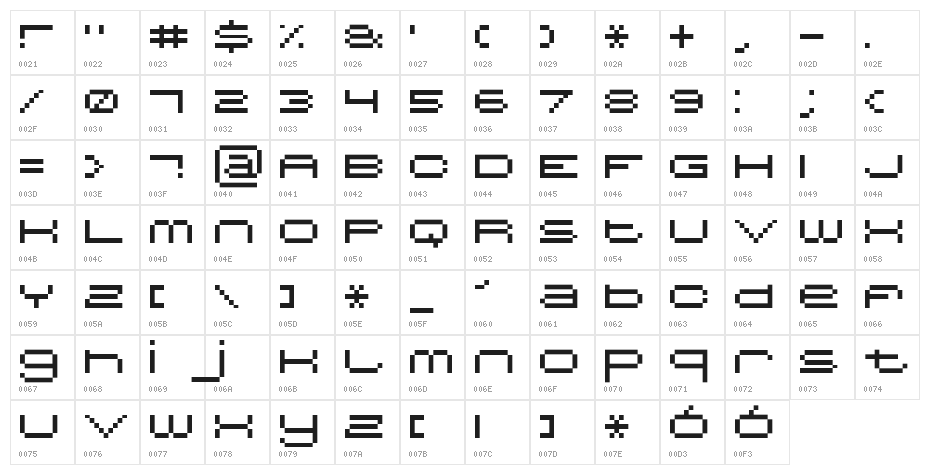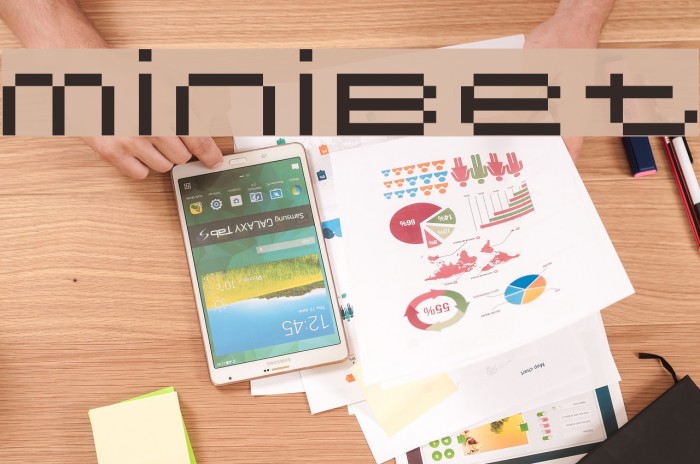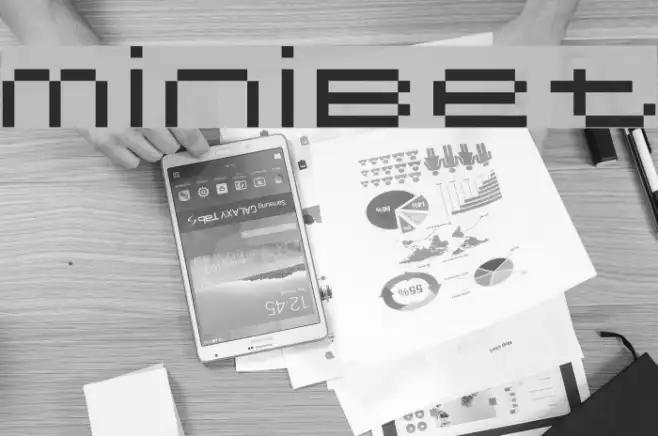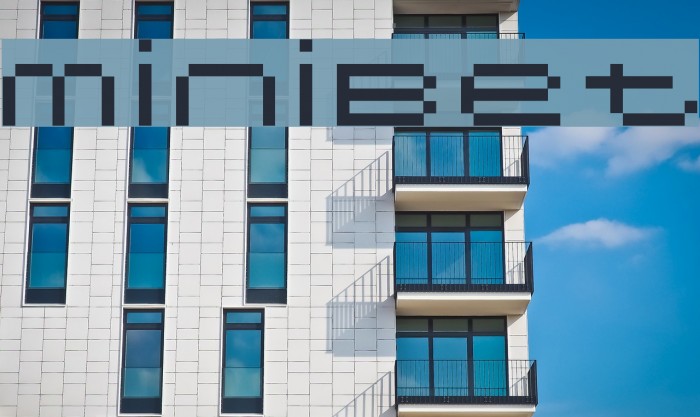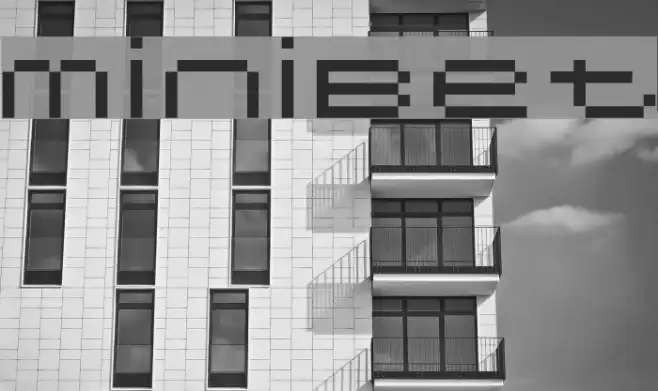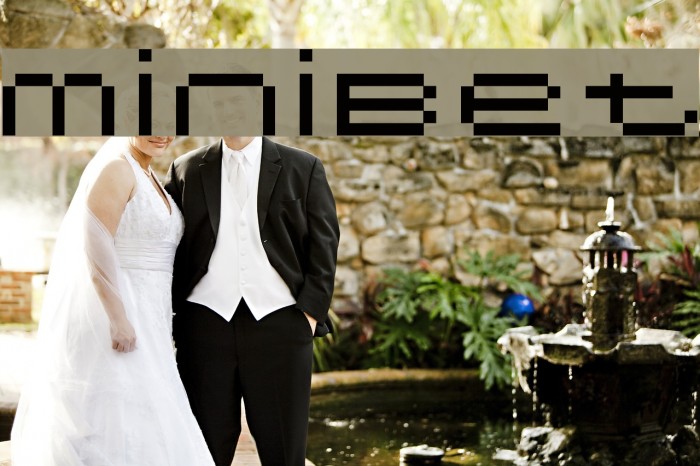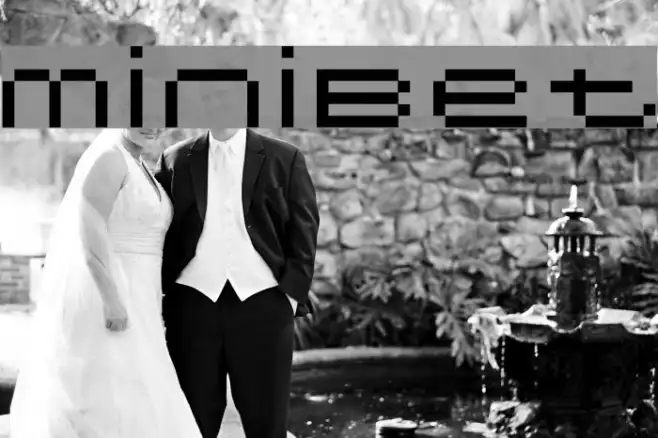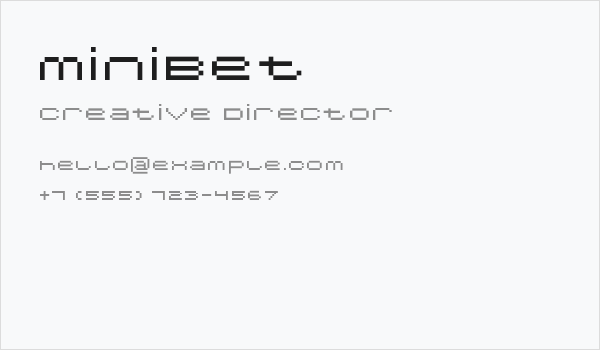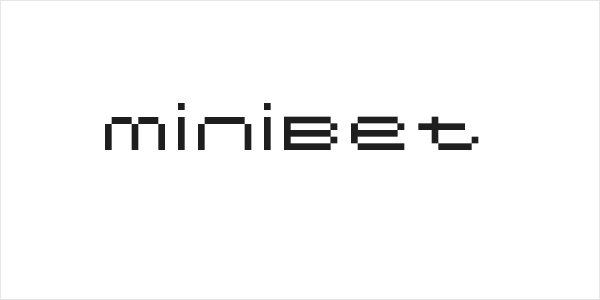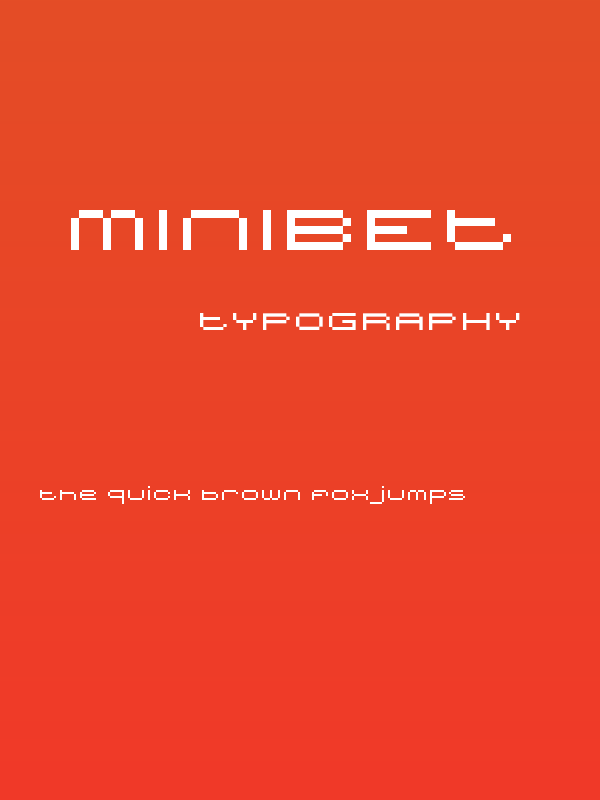
MiniBet Font
MiniBet Description
This font features a pixelated, grid-like design reminiscent of early digital displays and retro video games. Each character is constructed with a uniform square grid, giving it a blocky and geometric appearance. The uppercase and lowercase letters maintain a consistent height, contributing to a cohesive and structured look. The numerals and special characters follow the same pixelated style, ensuring uniformity across all glyphs. This font's distinct style is both nostalgic and modern, making it suitable for projects that aim to evoke a sense of digital nostalgia or a futuristic aesthetic.
| Use Case | Logos, Headlines, Digital displays |
| Proposed Projects | Ideal for video game design, digital art projects, retro-themed graphics, and tech-related branding. |